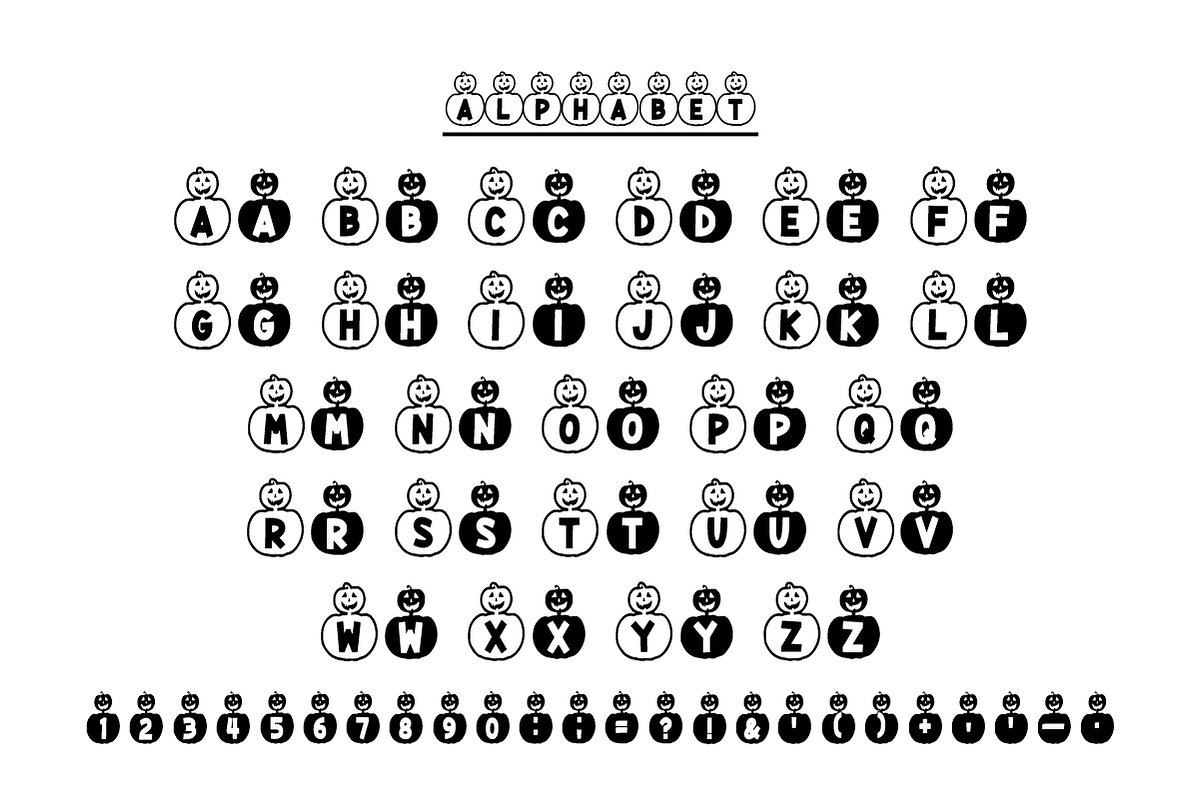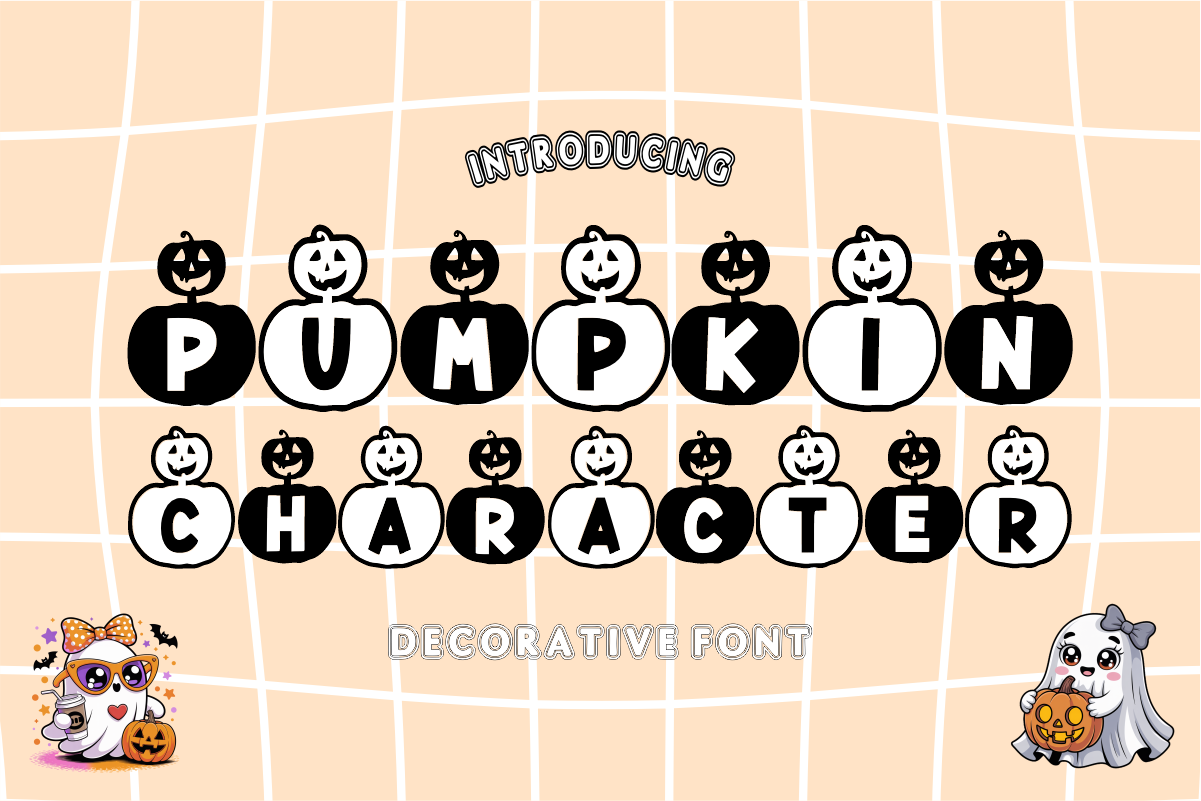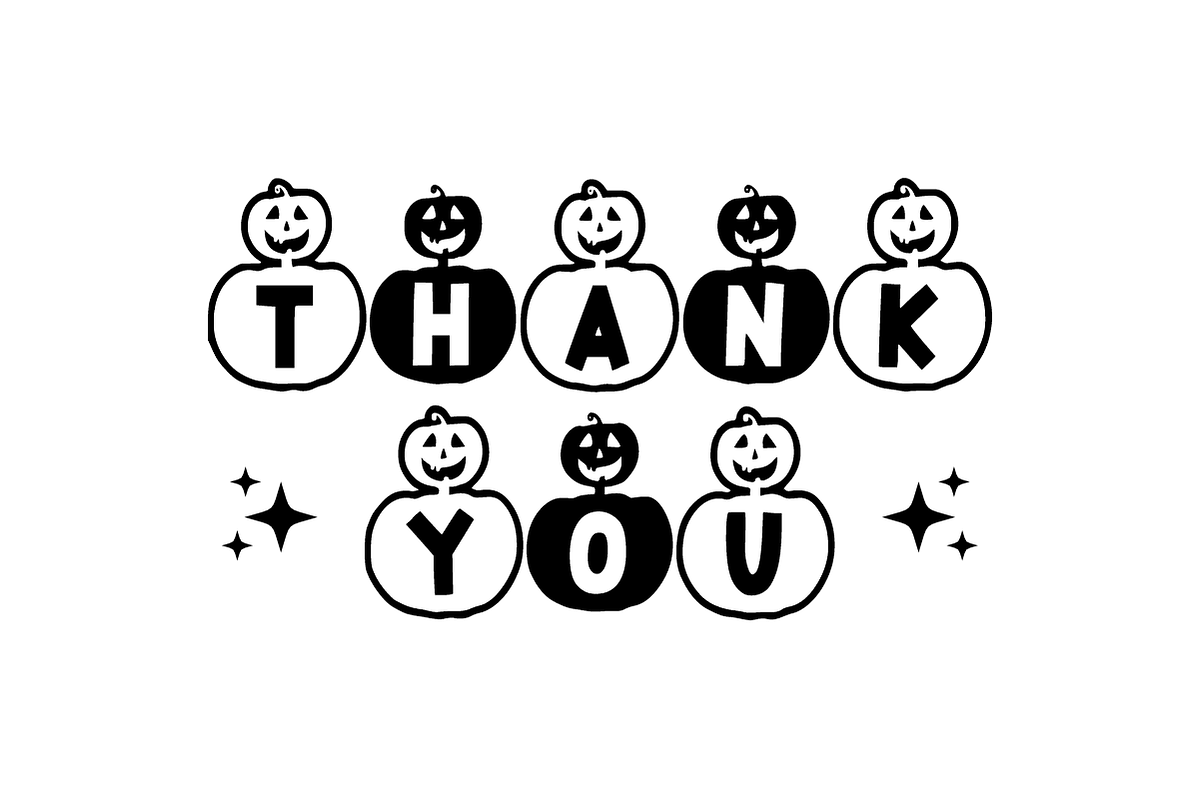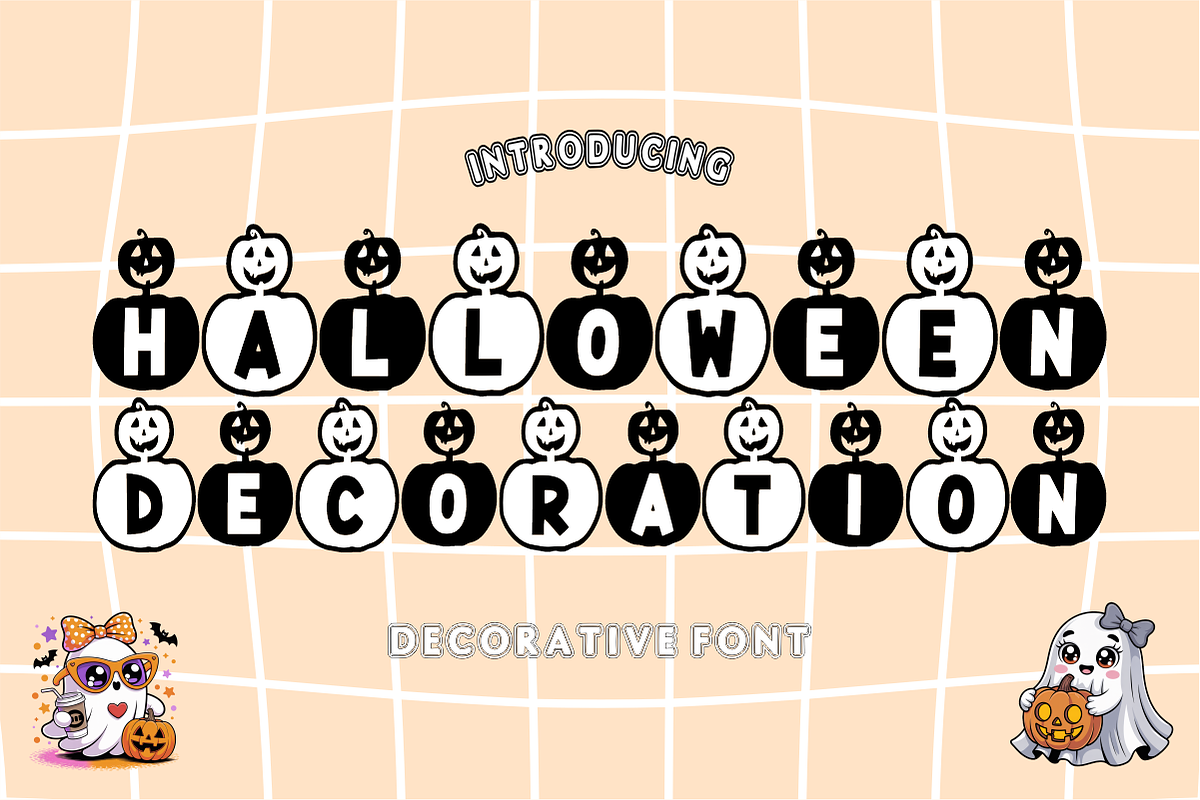
Pumpkin Character - Decorative Font
Pumpkin Character – Festive Halloween Decorative Font 🎃✨
Add a Spooky-Cute Touch to Your Autumn Designs!
Pumpkin Character is a unique and playful decorative font where every letter is perfectly nested inside a charming pumpkin silhouette. Featuring a mix of solid black and outlined styles, this font is designed to give your headlines an instant festive look without needing any extra illustrations. Whether you’re creating for a spooky party or a cozy autumn market, this font brings the spirit of the season to life!
🌟 Why Pumpkin Character is a Seasonal Essential:
Built-in Illustration: Each letter comes framed in a hand-drawn pumpkin shape, acting as both typography and clipart in one.
High-Contrast Design: Perfectly bold and legible, making it ideal for high-impact social media graphics and printed merchandise.
Versatile Aesthetic: Blends a "spooky" theme with a "cute" style, making it appropriate for both kids' projects and professional branding.
Full Character Set: Unique "Pumpkin-Framed" Uppercase Letters (A-Z).
Numbers & Symbols: Matching themed numerals (0-9) and essential punctuation.